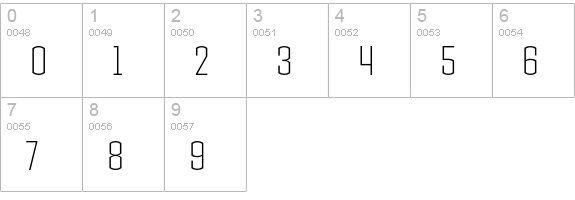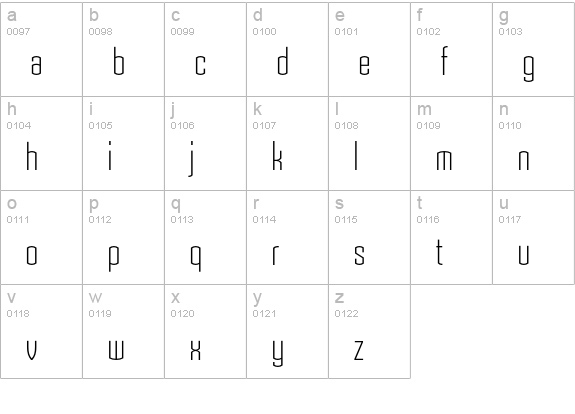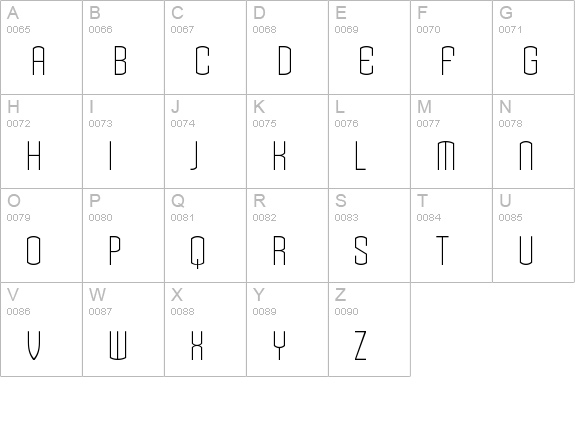
Armada-LightCondensed is a sleek and modern font that exudes elegance and sophistication. Its condensed design makes it perfect for projects that require a clean and polished look. With its subtle curves and sharp angles, this font is sure to make a statement. Best of all, Armada-LightCondensed is available for free download at FontsMarket.com. This means you can use this stylish font in your designs without having to worry about breaking the bank. Whether you're working on a logo, poster, or website, Armada-LightCondensed is a versatile choice that will elevate your project to the next level. Download it today and add a touch of class to your designs.